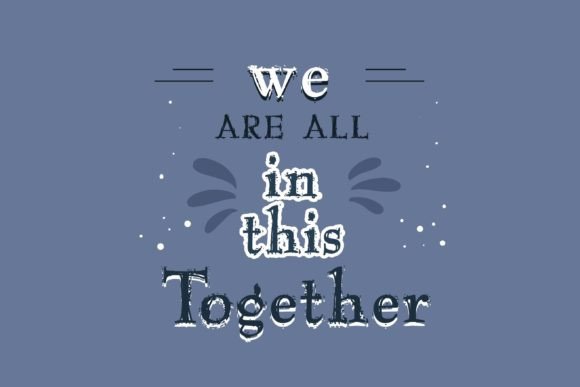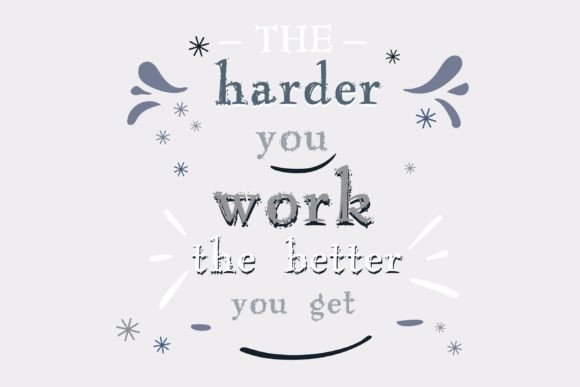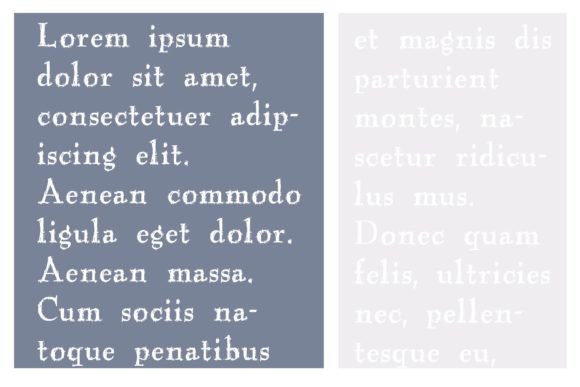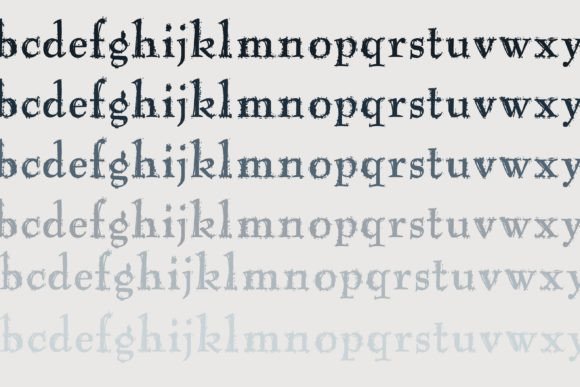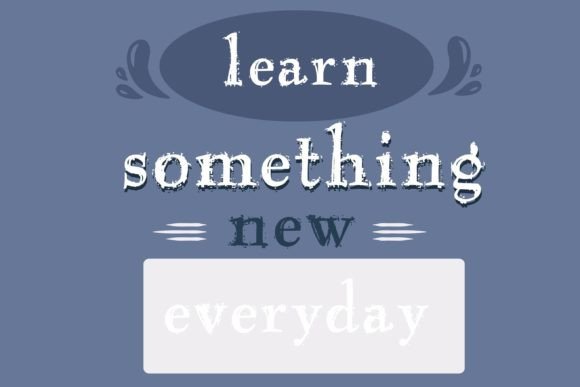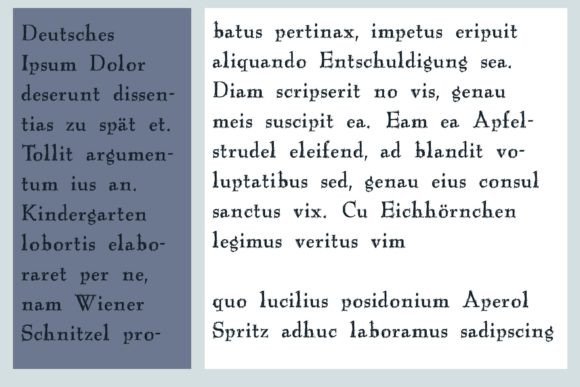
Elevate Your Design with Antique Font: A Timeless Choice for Luxury Branding
In the world of typography, few fonts evoke the sense of luxury and sophistication that antique fonts do. Among these, one hand-crafted serif font stands out for its unique character and detailed grunge texture. This font is not just a typeface; it’s an experience, a statement of elegance and refinement that can elevate your branding and logo design projects to new heights.
The Charm of Hand-Crafted Serifs
Hand-crafted serifs, like the antique font in question, are distinguished by their meticulously designed details. Each letter is crafted with care, featuring extra grunge and character that set them apart from more uniform, digital fonts. This level of detail not only adds a layer of authenticity to your designs but also imbues them with a sense of history and tradition.
Adding Luxury and Style to Your Designs
When it comes to branding and logo design, the font you choose can speak volumes about your brand’s personality and values. An antique font with its luxurious feel and classic appeal can instantly elevate your brand’s image. It’s perfect for businesses that want to convey a sense of heritage, quality, and timelessness.
Whether you’re designing a logo, a business card, or a website, this font can add a touch of sophistication that sets your design apart. Its versatility means it can be used in a variety of contexts, from high-end fashion brands to bespoke jewelry designers, and even in the creation of elegant invitations and stationery.
Why Choose an Antique Font?
There are several reasons why designers and crafters might choose an antique font for their projects:
- Unique Character: The hand-crafted nature of antique fonts means each one is unique, offering a level of character that is hard to find in more modern, digital fonts.
- Elegance and Sophistication: The detailed grunge and serif elements add an air of elegance and sophistication to any design.
- Versatility: Despite its classic feel, an antique font can be used in a wide range of design projects, from logos and branding to packaging and advertising.
- Timeless Appeal: Unlike trend-driven fonts, antique fonts have a timeless quality that ensures your designs won’t look dated in a few years.
Tips for Using Antique Fonts in Your Designs
To make the most of an antique font, consider the following tips:
- Pair with Simpler Fonts: For body text, pair your antique font with a simpler, more readable font to create visual interest without sacrificing legibility.
- Use for Headings and Titles: The decorative nature of antique fonts makes them perfect for headings and titles, where you want to make a strong visual impact.
- Experiment with Colors: Antique fonts can look great in a variety of colors, but try experimenting with rich, deep tones to enhance their luxurious feel.
An antique font with its hand-crafted serifs and detailed grunge texture offers a unique opportunity to add luxury and style to your branding and logo design projects. Its timeless appeal and versatility make it a valuable addition to any designer’s toolkit. Whether you’re looking to create a classic, sophisticated look or simply want to stand out in a crowded market, this antique font is sure to impress.